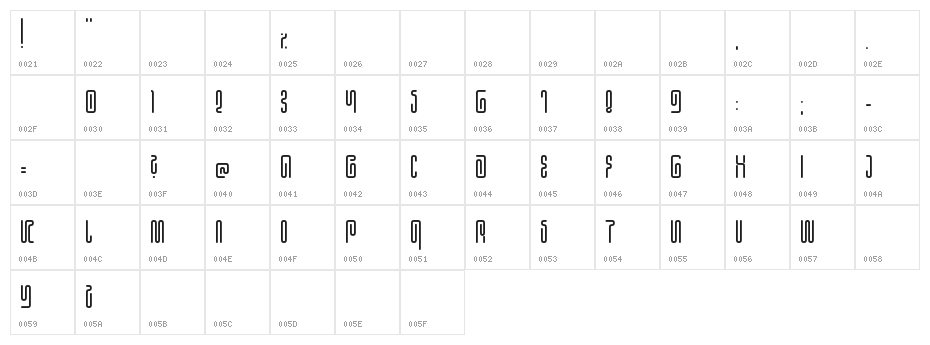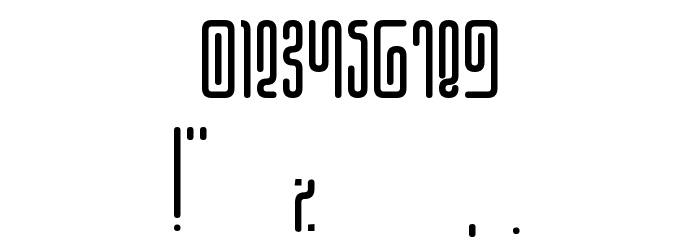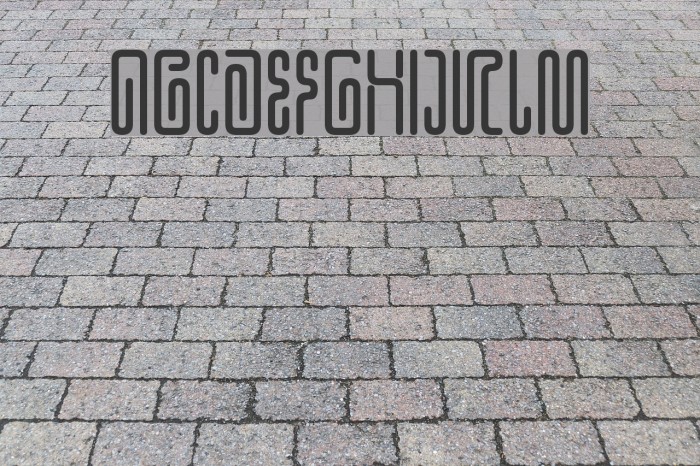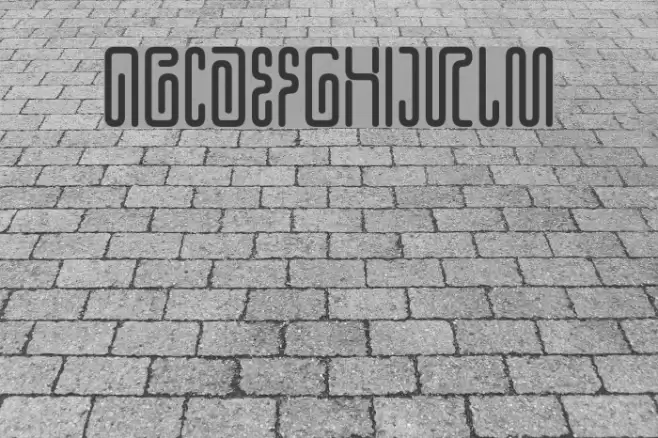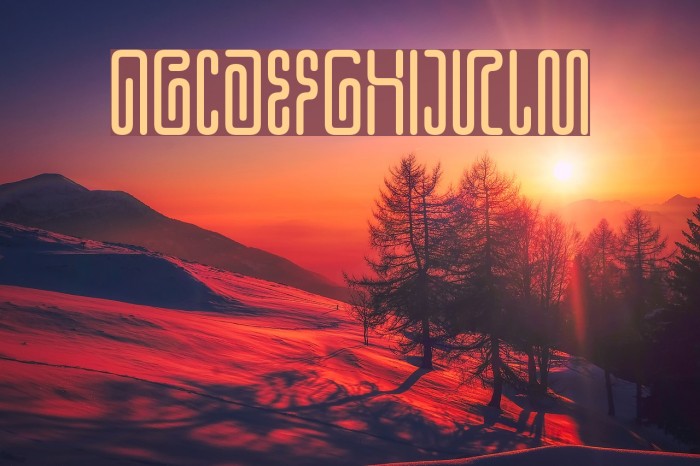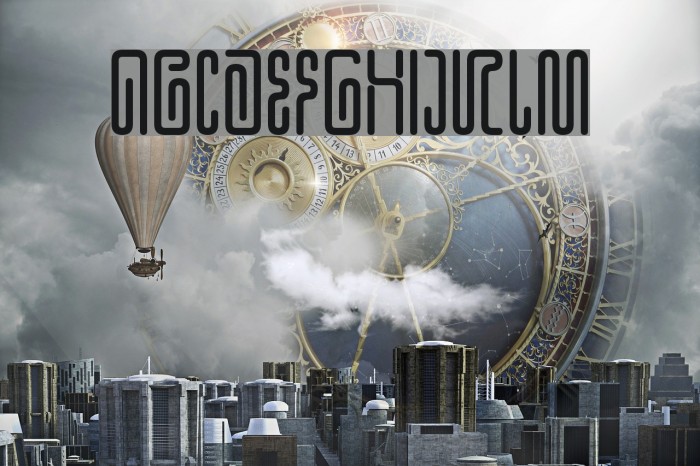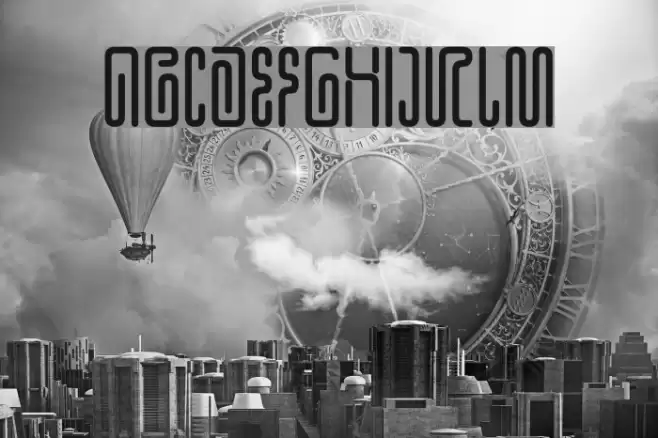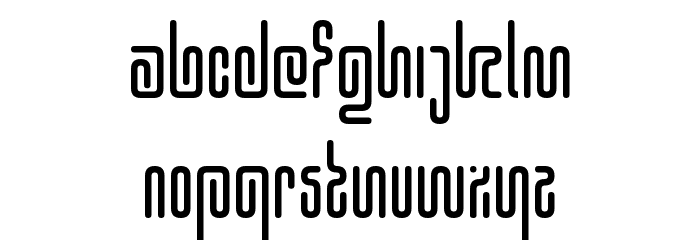
Hieroglyphic Font
Hieroglyphic Description
This font features a unique, decorative style that resembles ancient hieroglyphic symbols. The characters are elongated and have a consistent vertical alignment, creating a uniform appearance. The strokes are bold and rounded, providing a sense of continuity and flow. The design is highly stylized, with each letterform appearing as a distinct symbol, yet maintaining legibility. The spacing between characters is moderate, allowing for clarity while preserving the intricate design. This font is ideal for creating an exotic or mysterious aesthetic, suitable for themed projects or artistic endeavors.
| Use Case | Logos, Artistic projects, Themed events |
| Proposed Projects | Ideal for themed events, artistic projects, or creating an exotic and mysterious aesthetic in design work. |